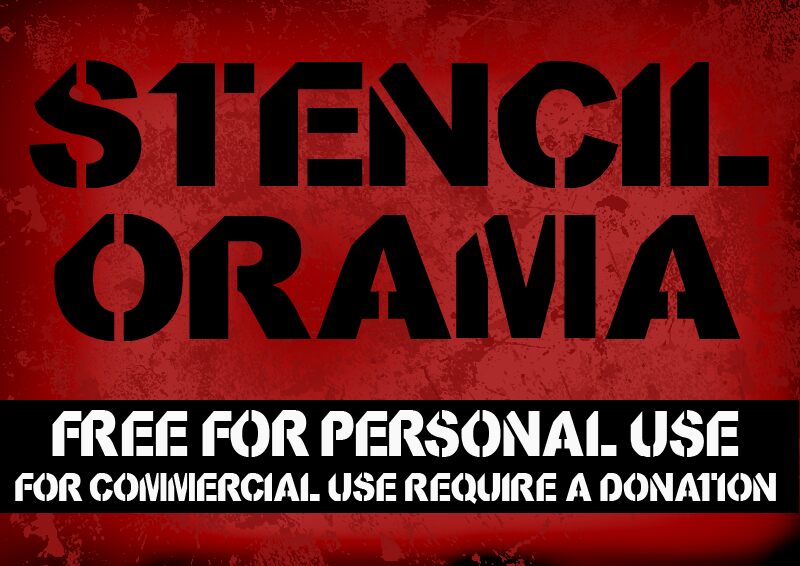
CF Stencil Orama by CloutierFontes is a free military stencil display font with massive caps and sharply cut openings. Its broad silhouettes, abrupt angles, and oversized breaks give the lettering an industrial, poster-like force.
Sports and action-game audiences will recognize its hard-edged impact in event posters, team merchandise, and title screens. It also suits rugged product packaging. The arrow-like gaps and slabby forms can echo badge shapes and mechanical illustration in interface graphics.
CF StencilOrama Regular is a font by CloutierFontes, designed by Steve Cloutier in 2012.